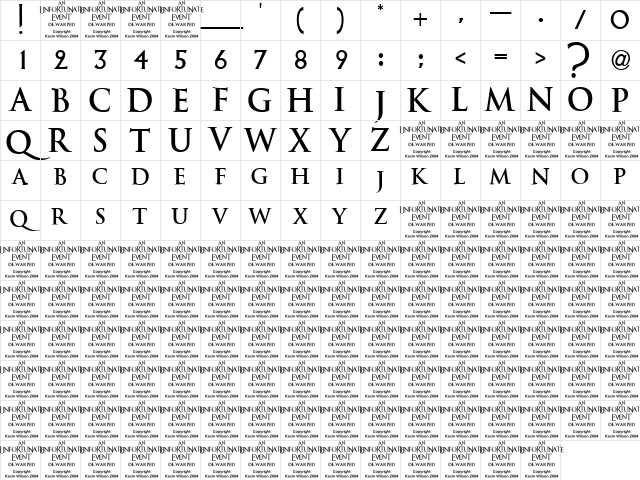
An Unfortunate Event DeWarped Regular
Design Context for An Unfortunate Event DeWarped
An Unfortunate Event DeWarped is a composed and adaptable typeface that performs quietly and consistently across a wide range of design contexts.
Pro Tip: Use An Unfortunate Event DeWarped in both headline and body roles to test its range before committing to a single application.